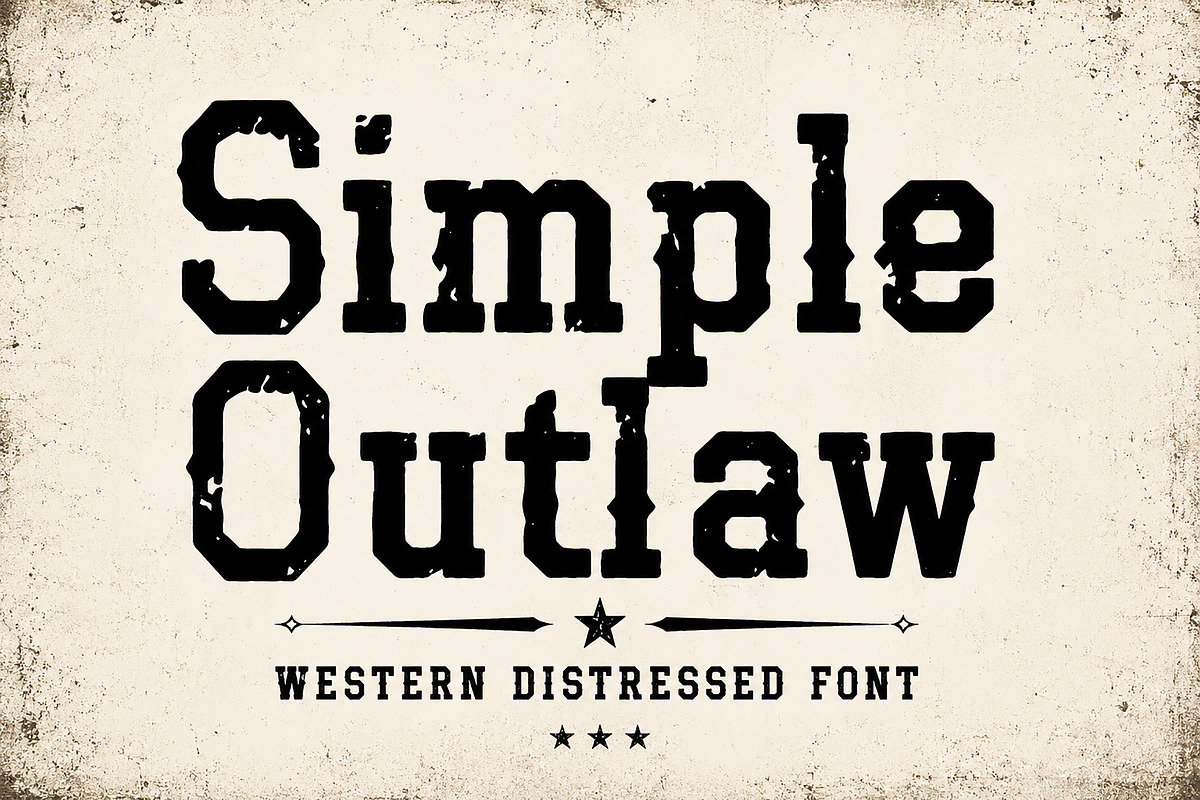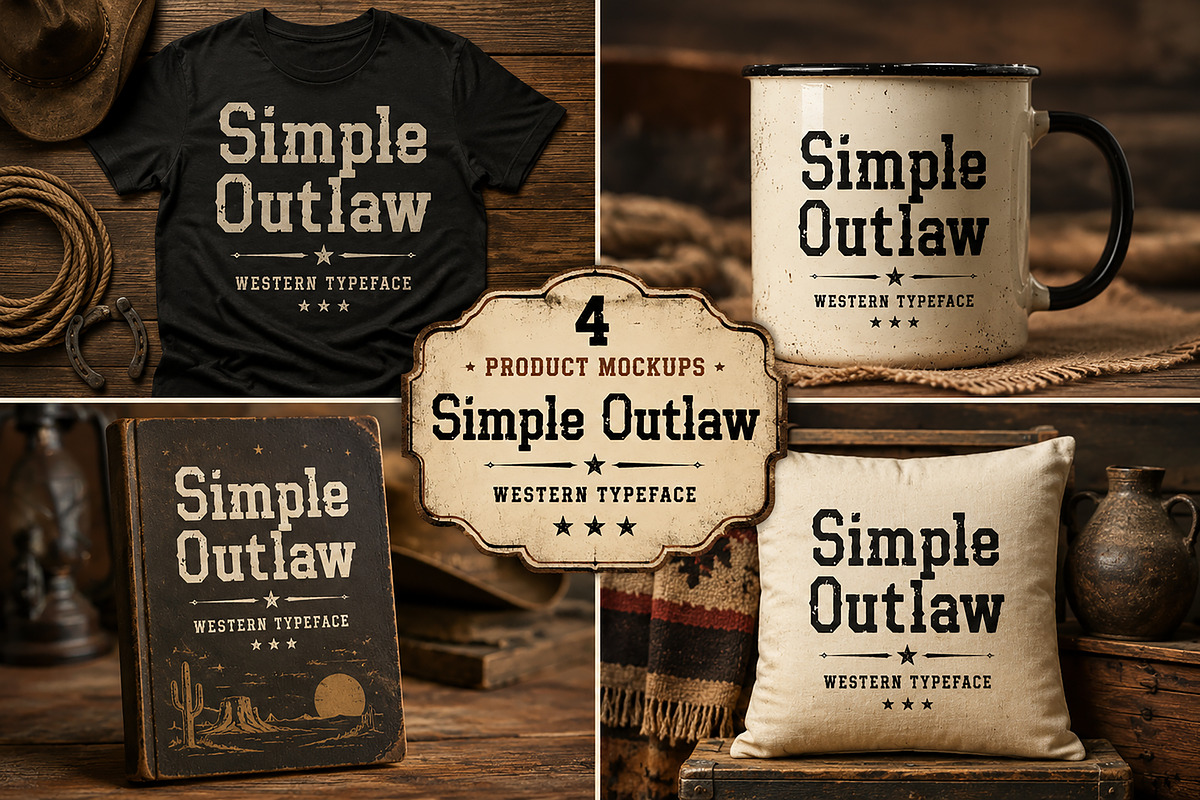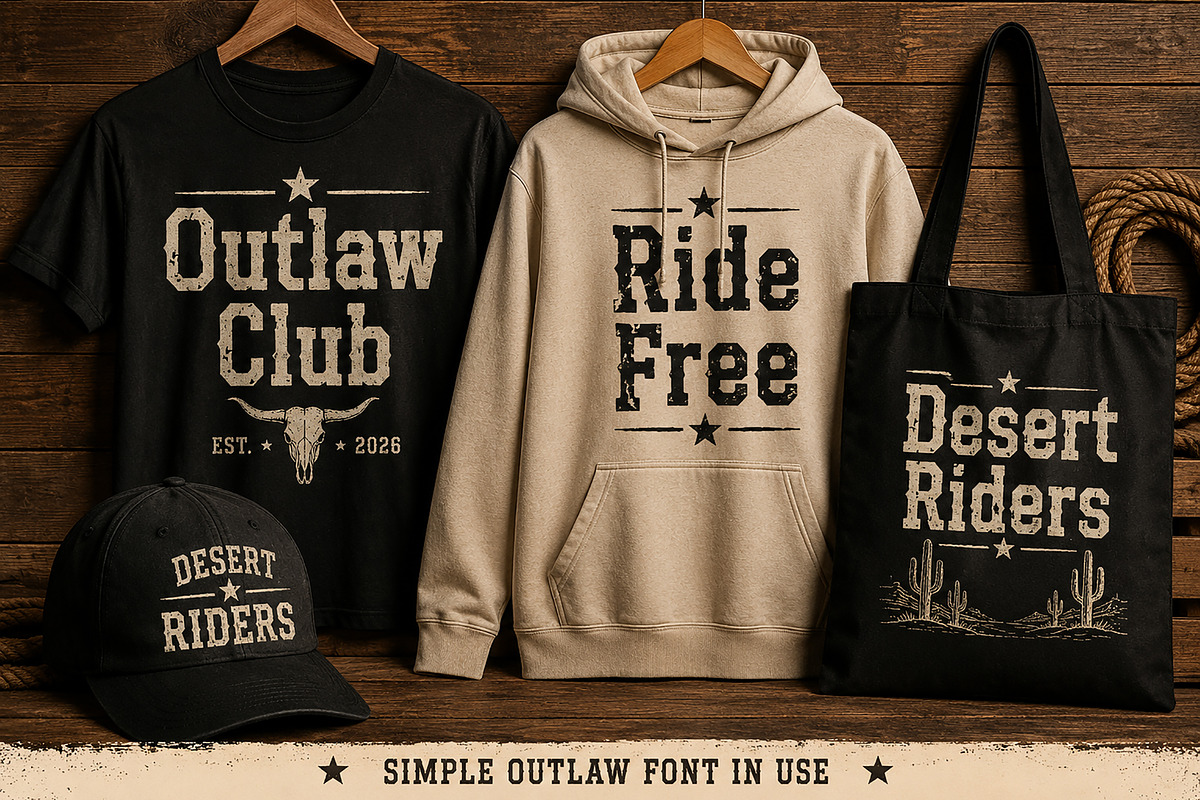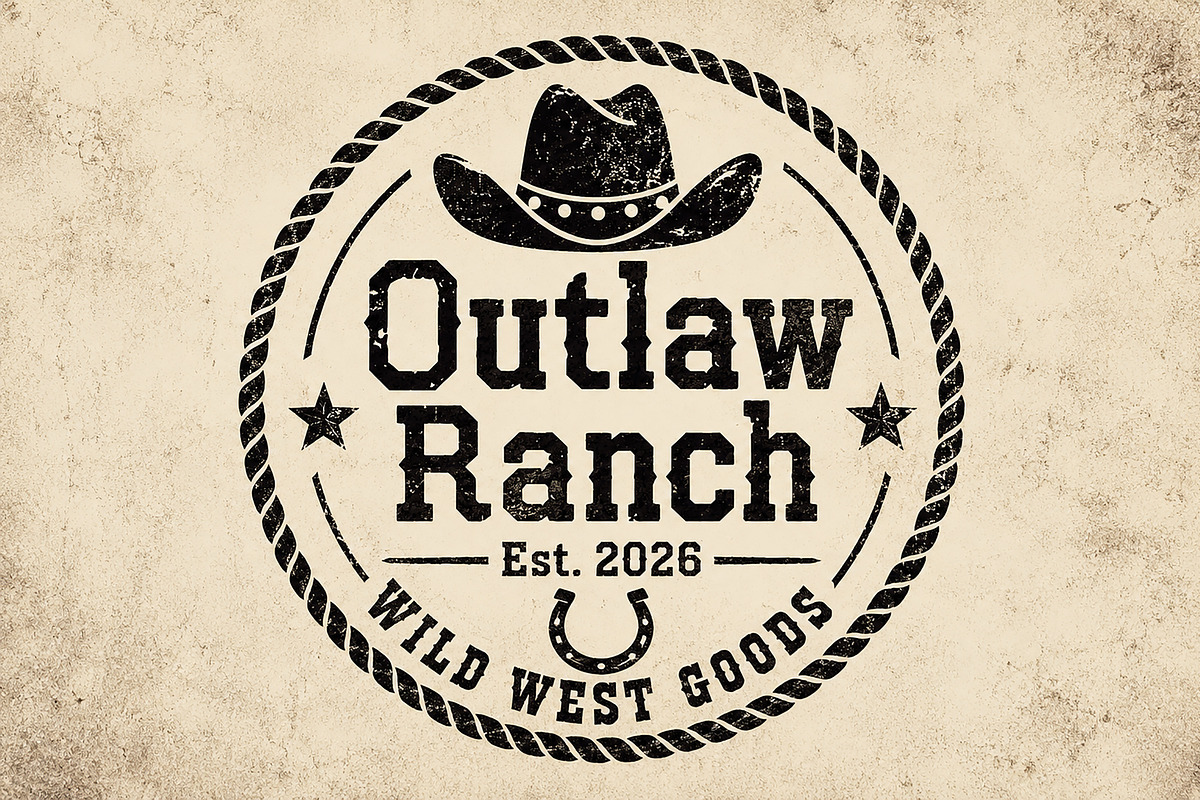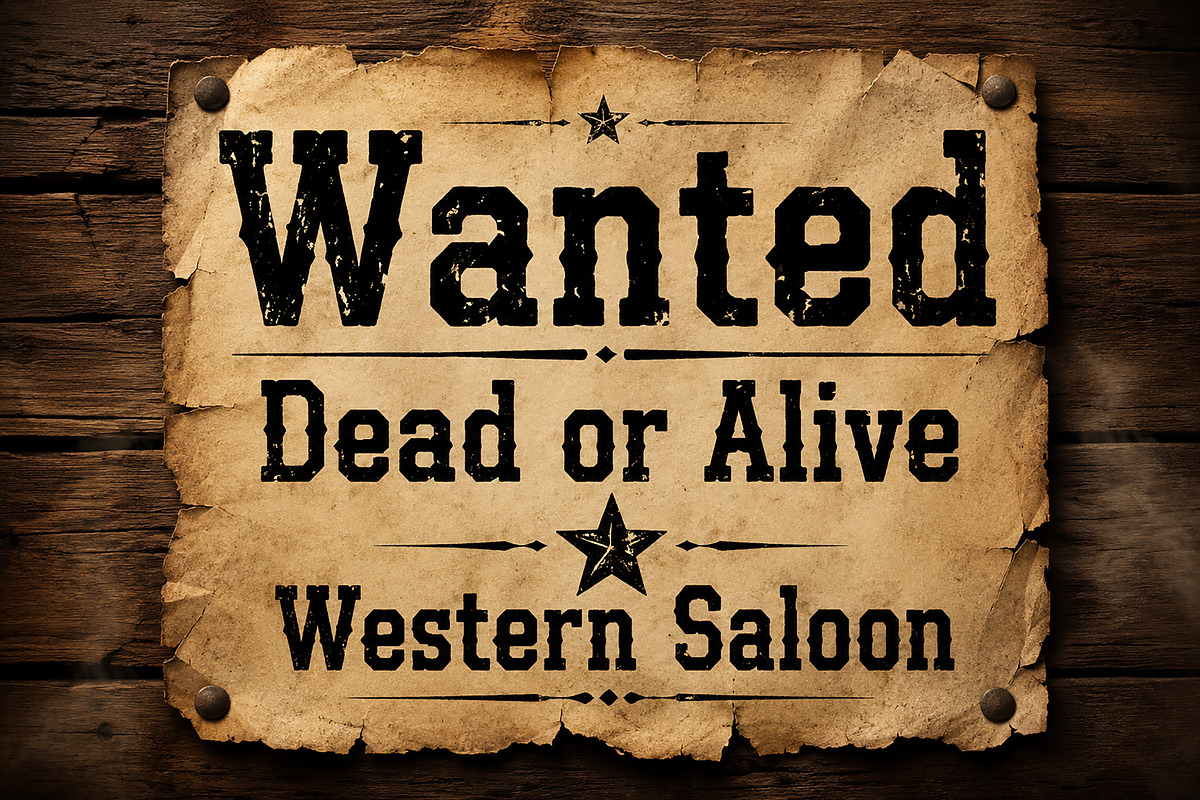
Simple Outlaw
Simple Outlaw – Western Distressed Font
Simple Outlaw is a bold western display font inspired by vintage saloon signs, cowboy culture, outlaw posters, and rustic Americana design. Featuring a rough distressed texture and strong letterforms, this typeface delivers an authentic wild west look perfect for eye-catching branding and retro-inspired projects.
Whether you’re designing logos, apparel, posters, packaging, or social media graphics, Simple Outlaw adds a rugged handcrafted character that instantly stands out. Ideal for western themes, vintage branding, rodeo events, country merchandise, and print-on-demand products.
Western & Cowboy Branding
Vintage Logos & Badges
T-shirt & Apparel Design
Posters & Flyers
Saloon Signage
Packaging & Labels
Rustic Social Media Graphics
Print-on-Demand Products
Stickers & Merchandise
Uppercase Characters
Distressed Vintage Texture
Bold Western Style
Bring the spirit of the wild west into your next creative project with Simple Outlaw!